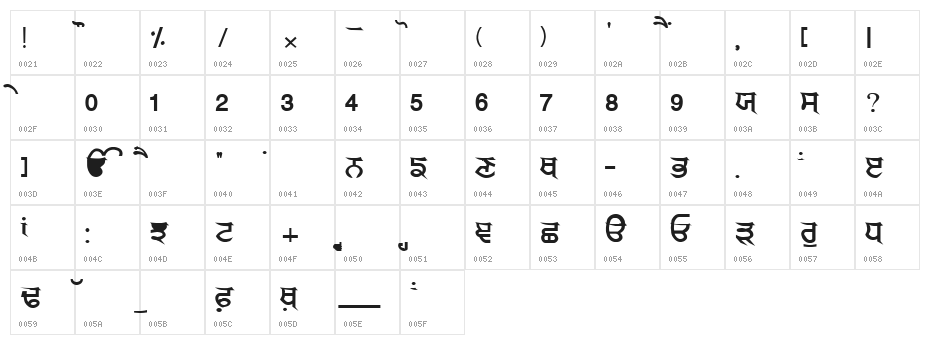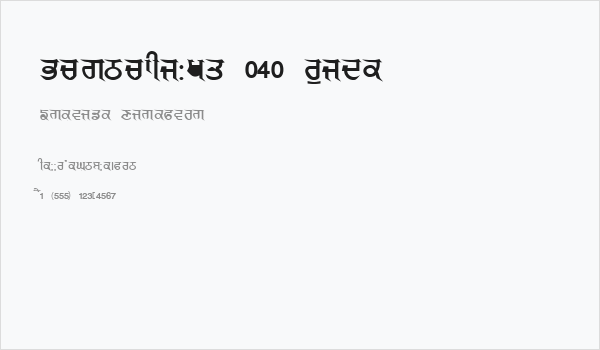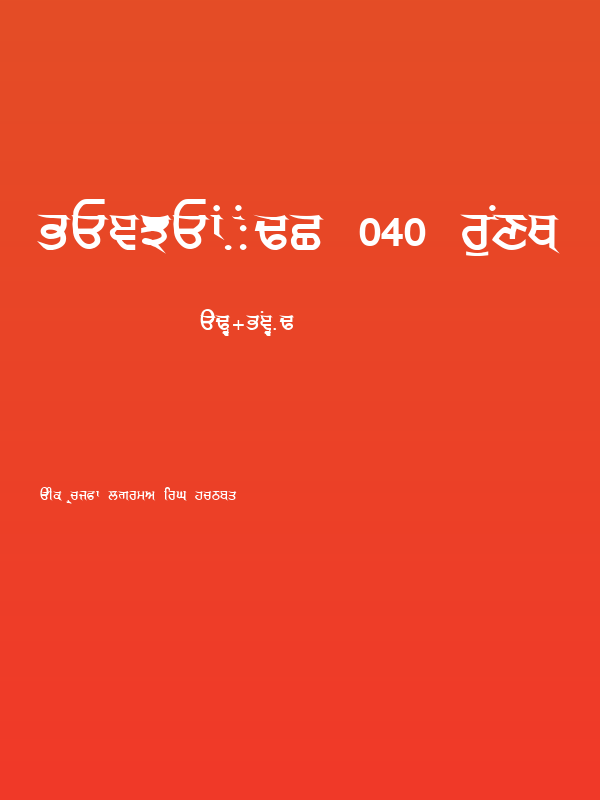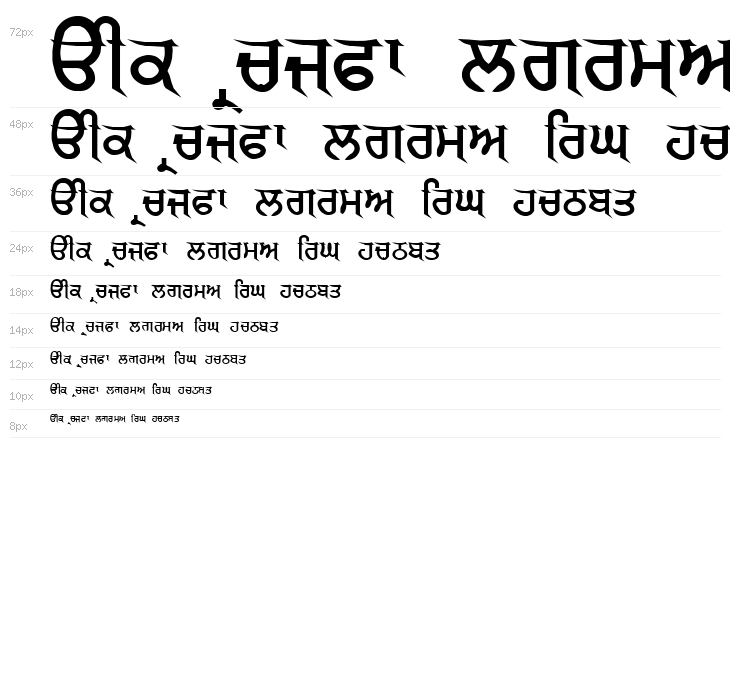
GurmukhiLys 040 Wide Font
GurmukhiLys 040 Wide Description
This font features a distinct and bold Gurmukhi script with a wide stance, offering a strong visual presence. The characters are well-defined with sharp edges and a consistent stroke width, providing a modern yet traditional feel. The numerals and special characters complement the script with a similar boldness and clarity. The overall design is suitable for both digital and print media, ensuring readability and aesthetic appeal.
| Use Case | Headlines, Logos, Signage |
| Proposed Projects | Ideal for cultural publications, educational materials, signage, and branding projects that require a strong Gurmukhi presence. |